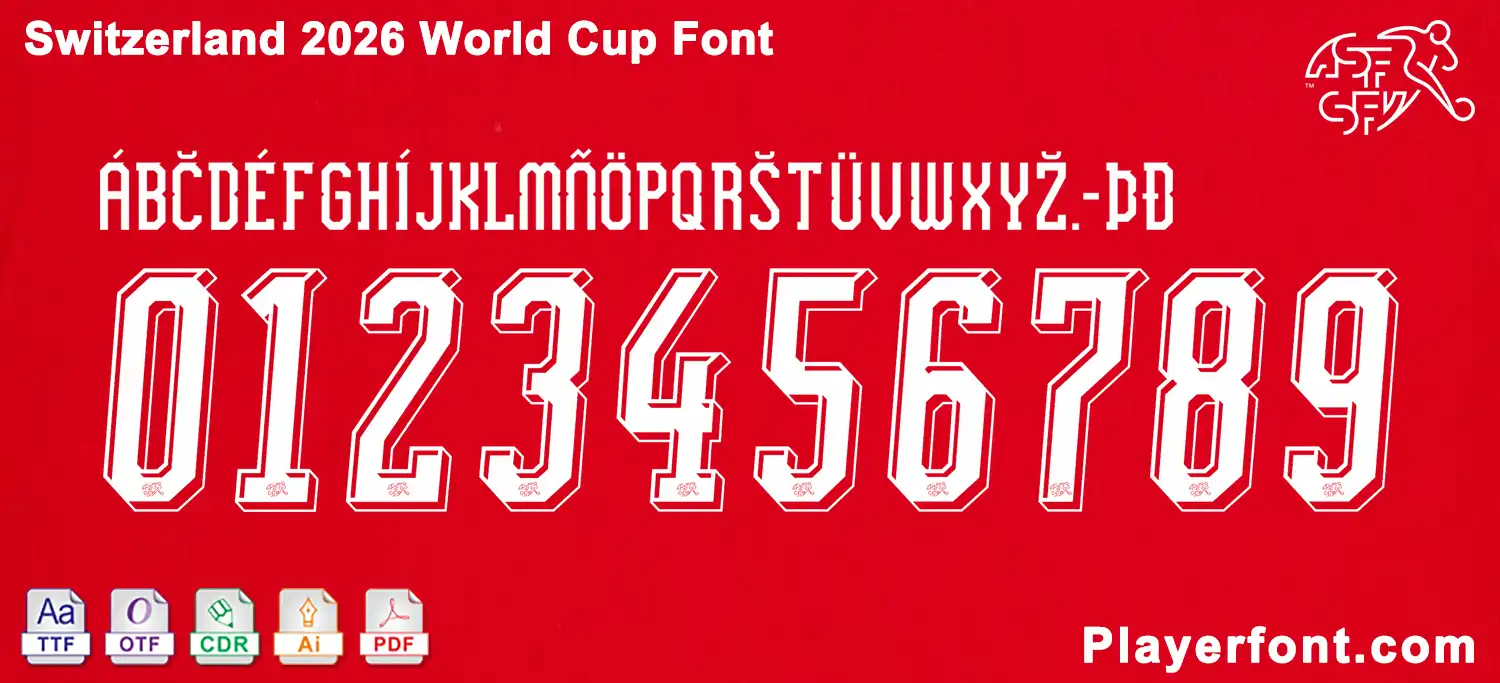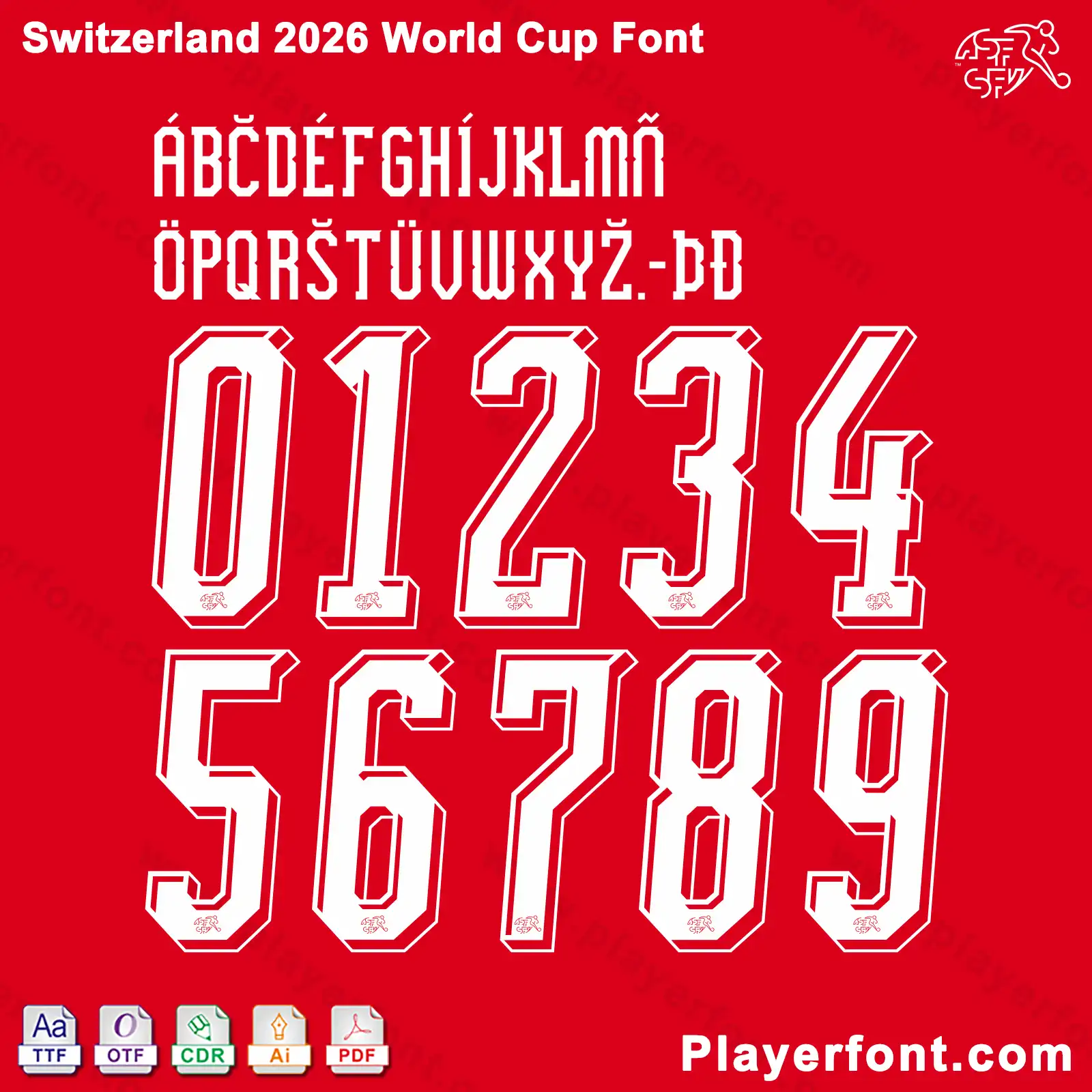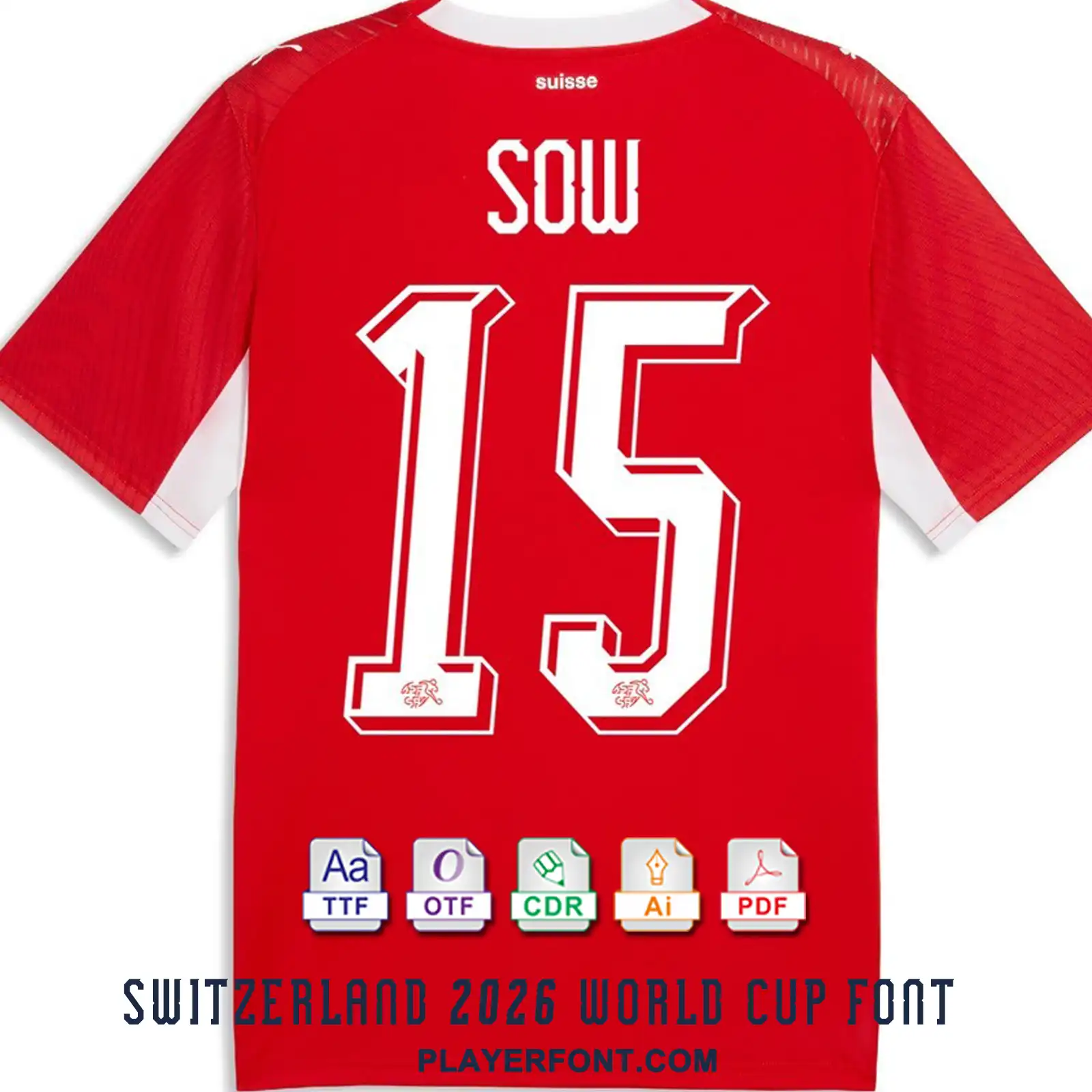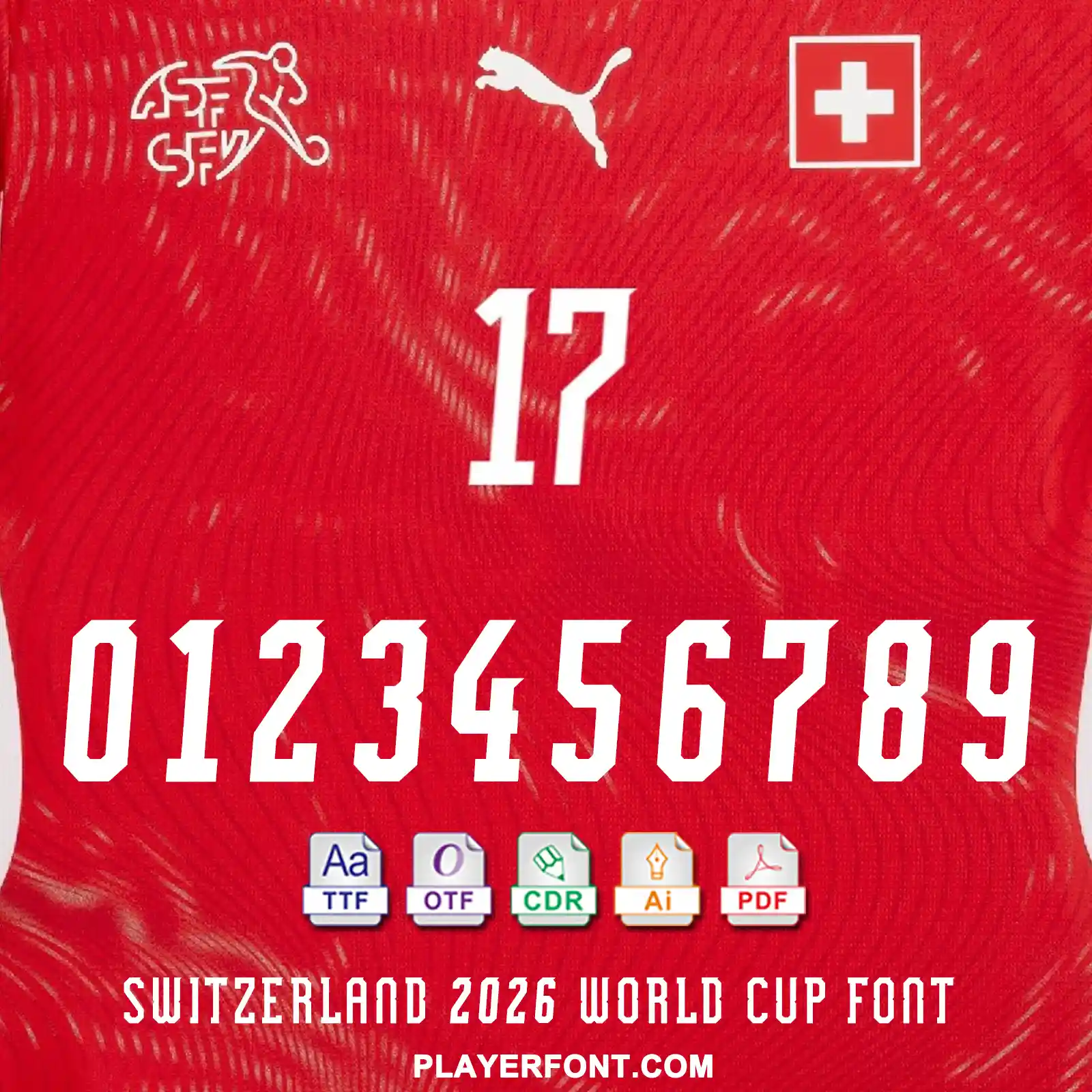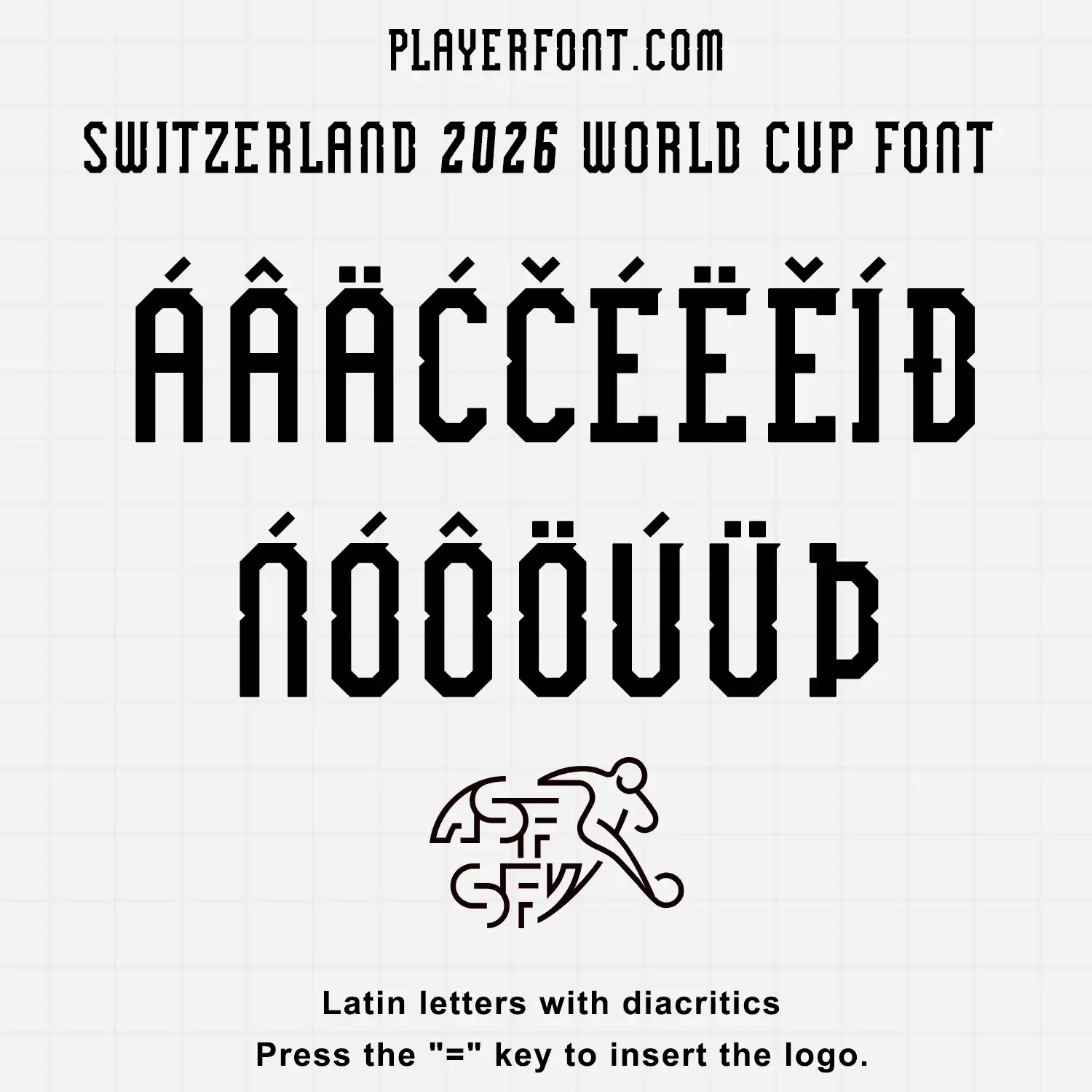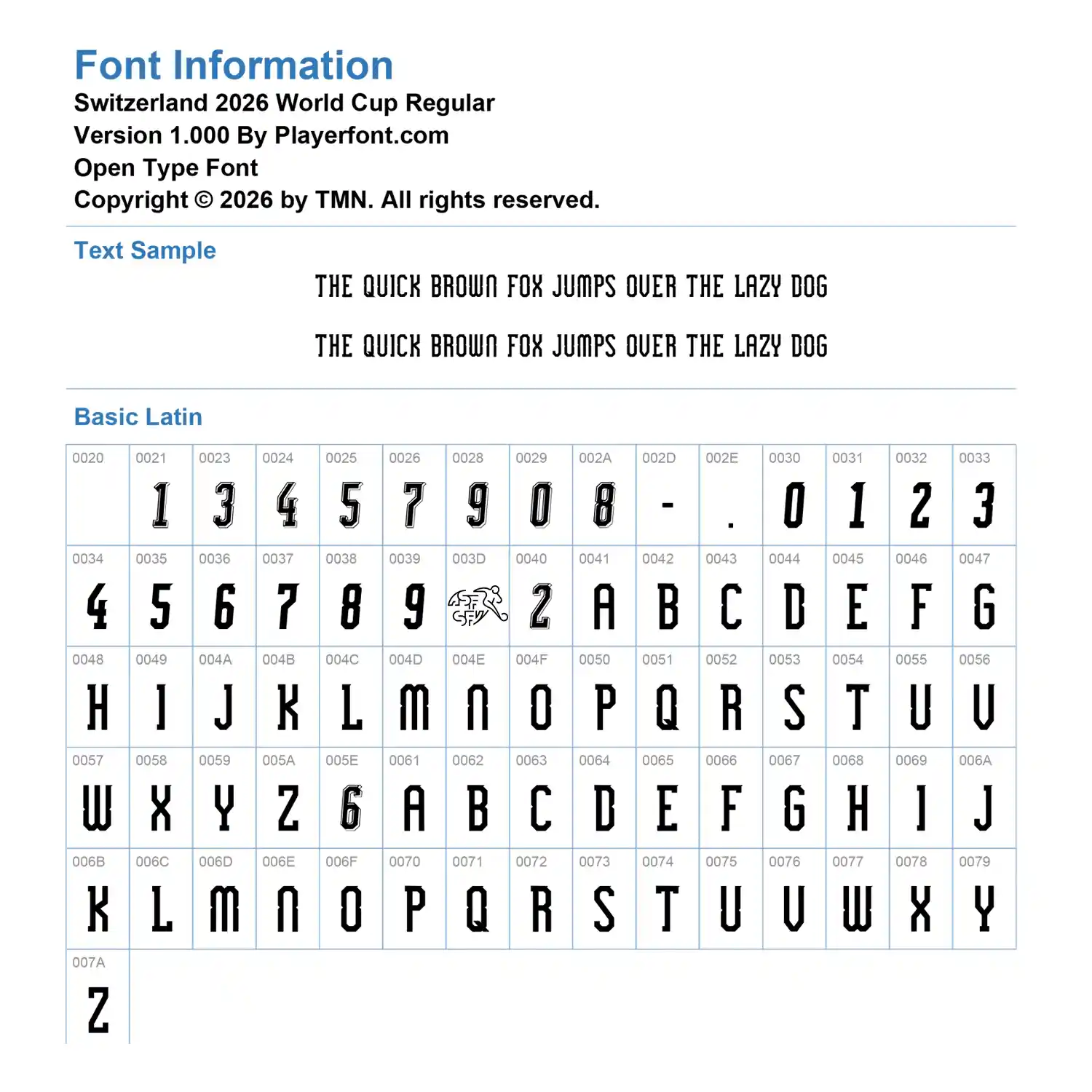
Get ready for the tournament with the official Switzerland 2026 World Cup font. Designed for sports kit creators, designers, and apparel decorators, this digital font package is an exact digital replica of the typography worn by the Swiss national team during the 2026 World Cup.
The typeface features sharp, modern blocky contours integrated with the Swiss Football Association (ASF/SFV) design language. It is perfect for heat press jersey applications, custom t-shirt graphics, and vector editing software.
Complete Character Set: Includes standard Latin characters, extended diacritics, and numbers 0–9.
Integrated Logo: Includes special character bindings to easily insert the Swiss team crest.